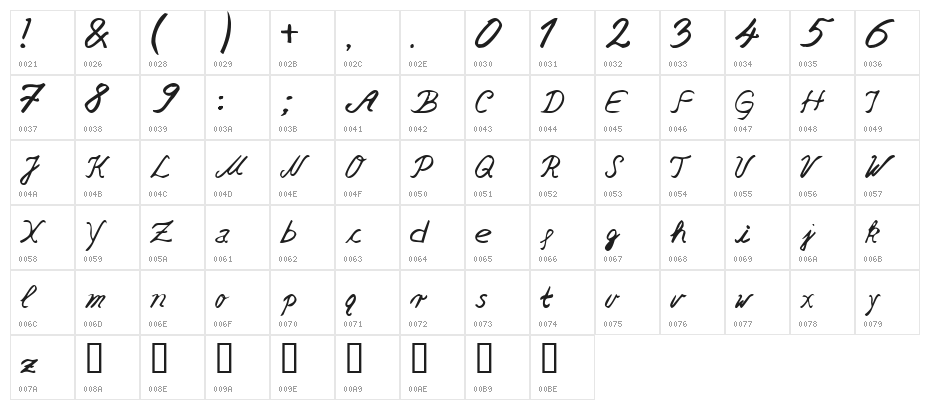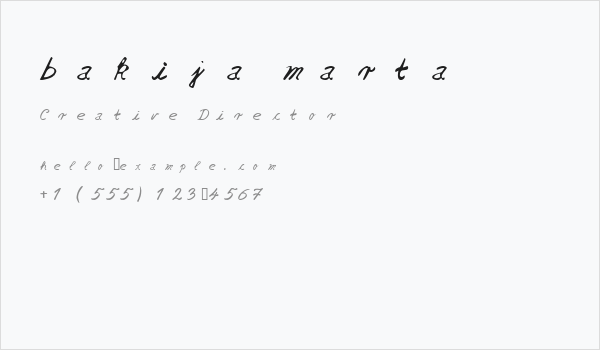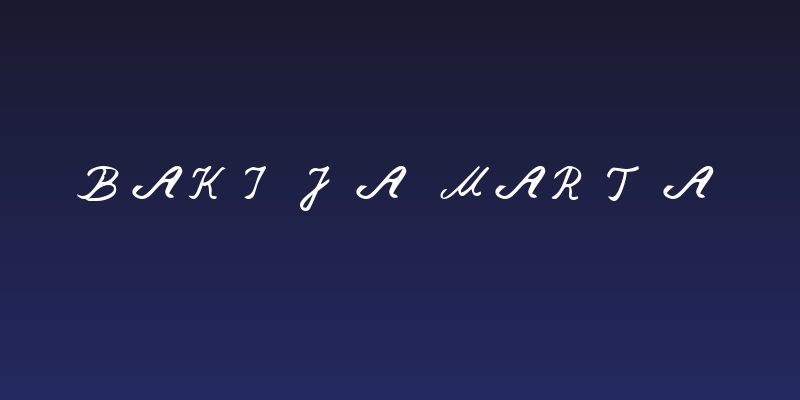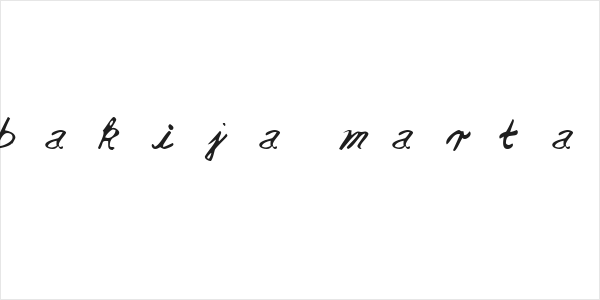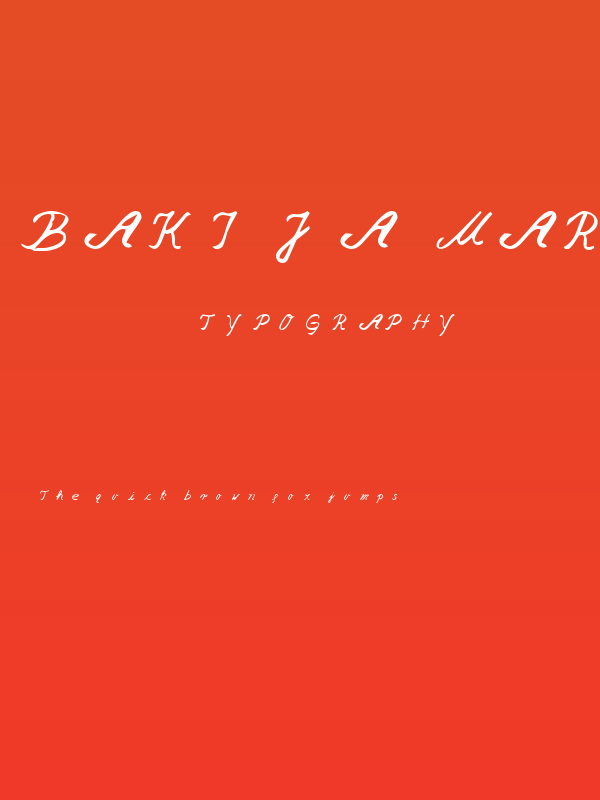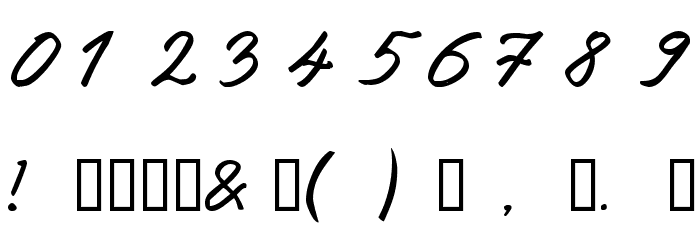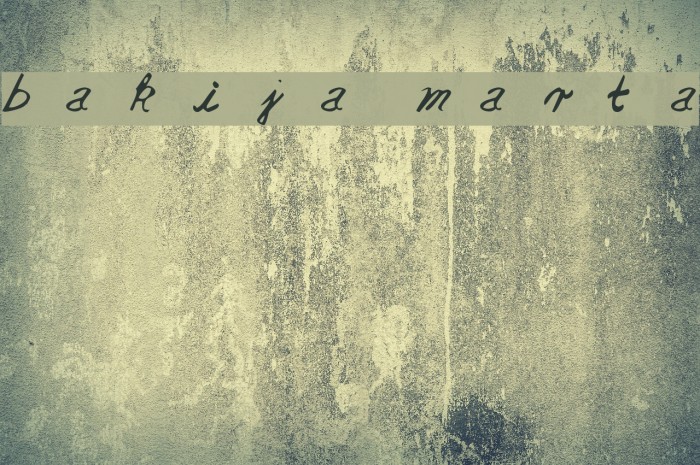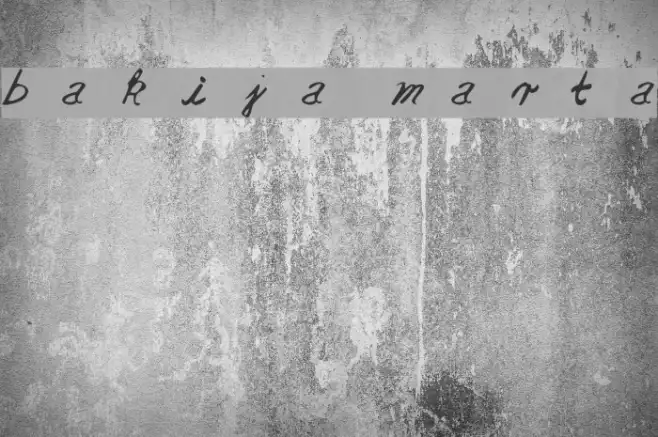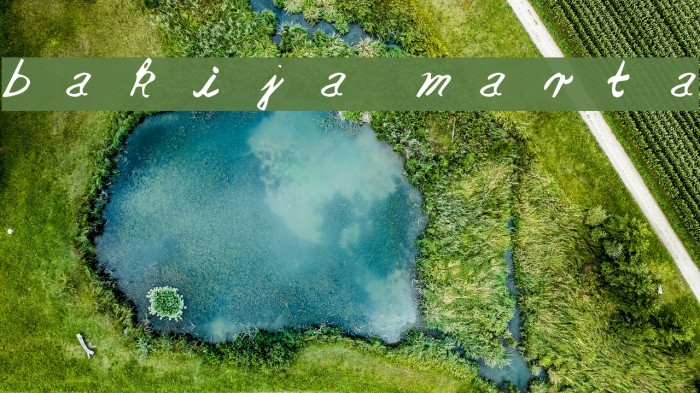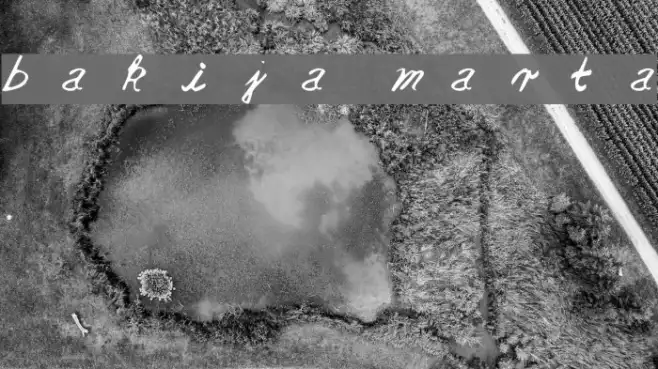
bakija marta Font
bakija marta Description
This elegant script font features a flowing, cursive style with smooth, connected strokes. The uppercase letters are distinguished by their graceful loops and swashes, adding a touch of sophistication. Lowercase letters maintain a consistent flow, enhancing readability while retaining an artistic flair. The numerals are styled to match the cursive theme, with slight variations in stroke thickness that add visual interest. Special characters are seamlessly integrated, maintaining the overall aesthetic. This font exudes a classic charm, making it suitable for projects that require a touch of elegance and refinement.
| Overall Style | Classic |
| Use Case | Logos, Invitations, Decorative text |
| Proposed Projects | Ideal for wedding invitations, elegant branding, greeting cards, and decorative signage. |